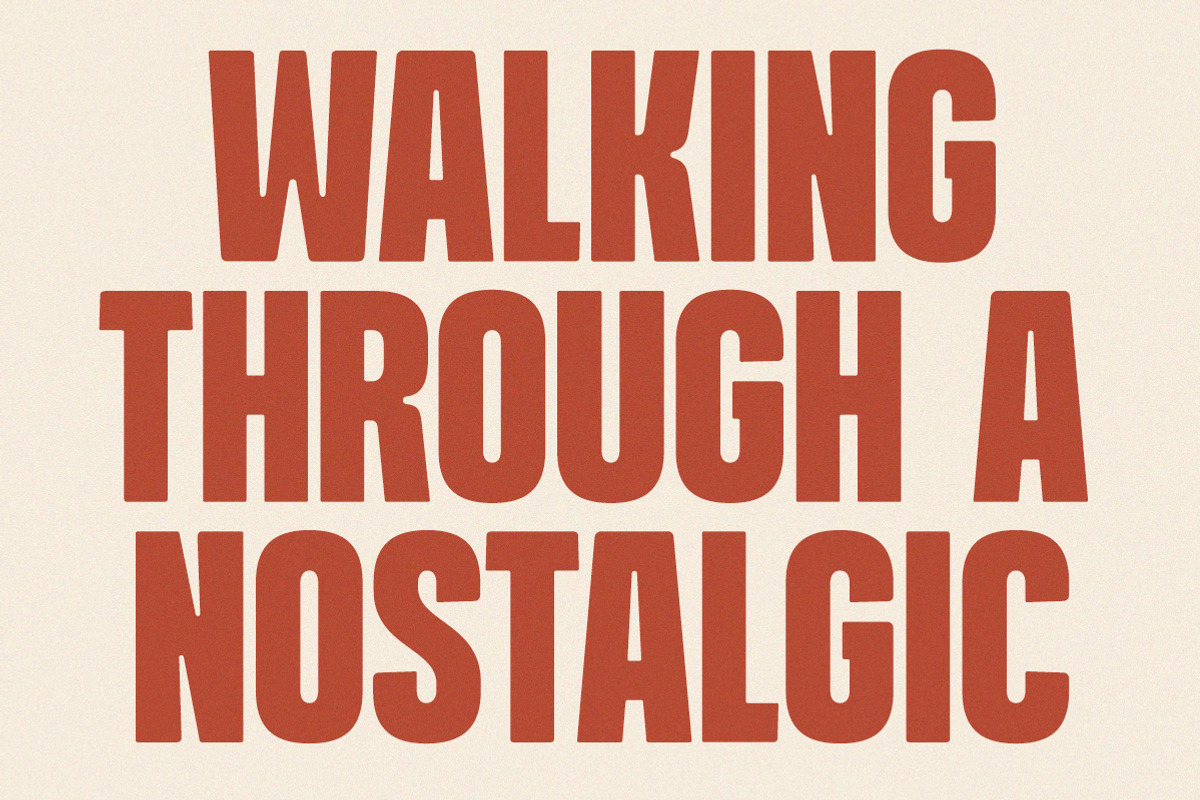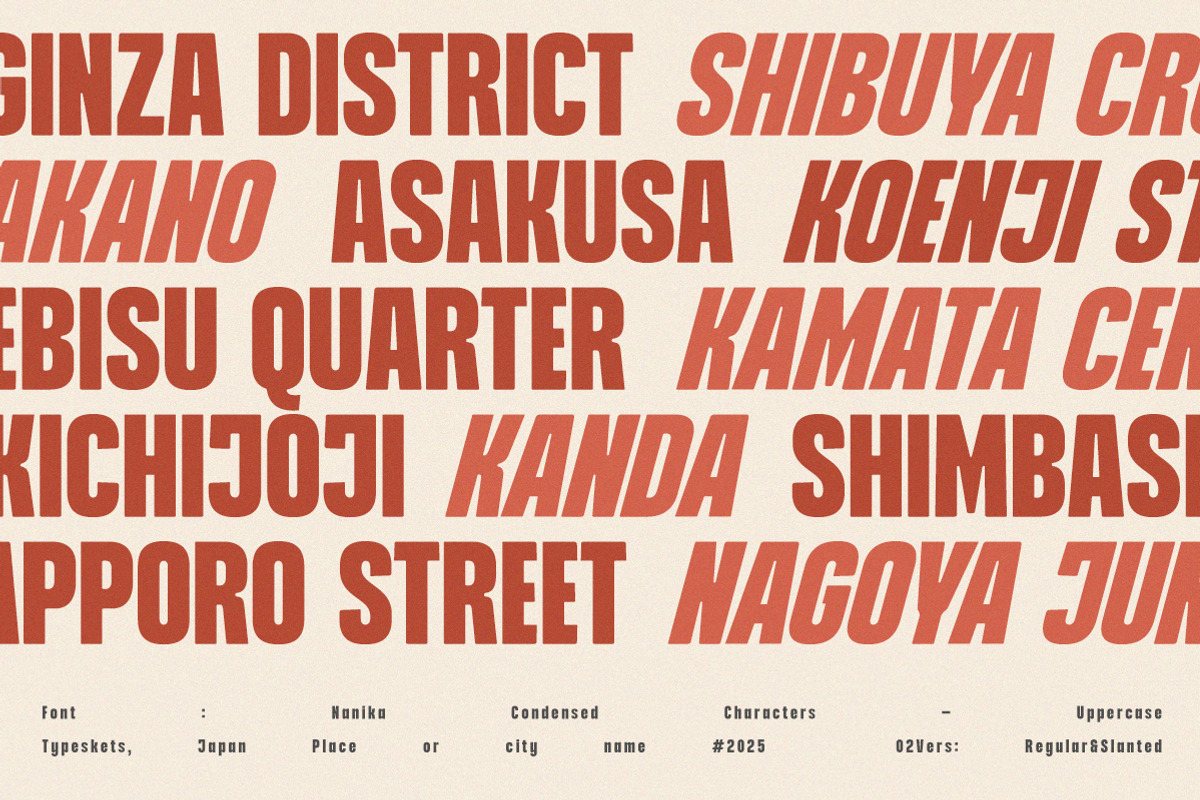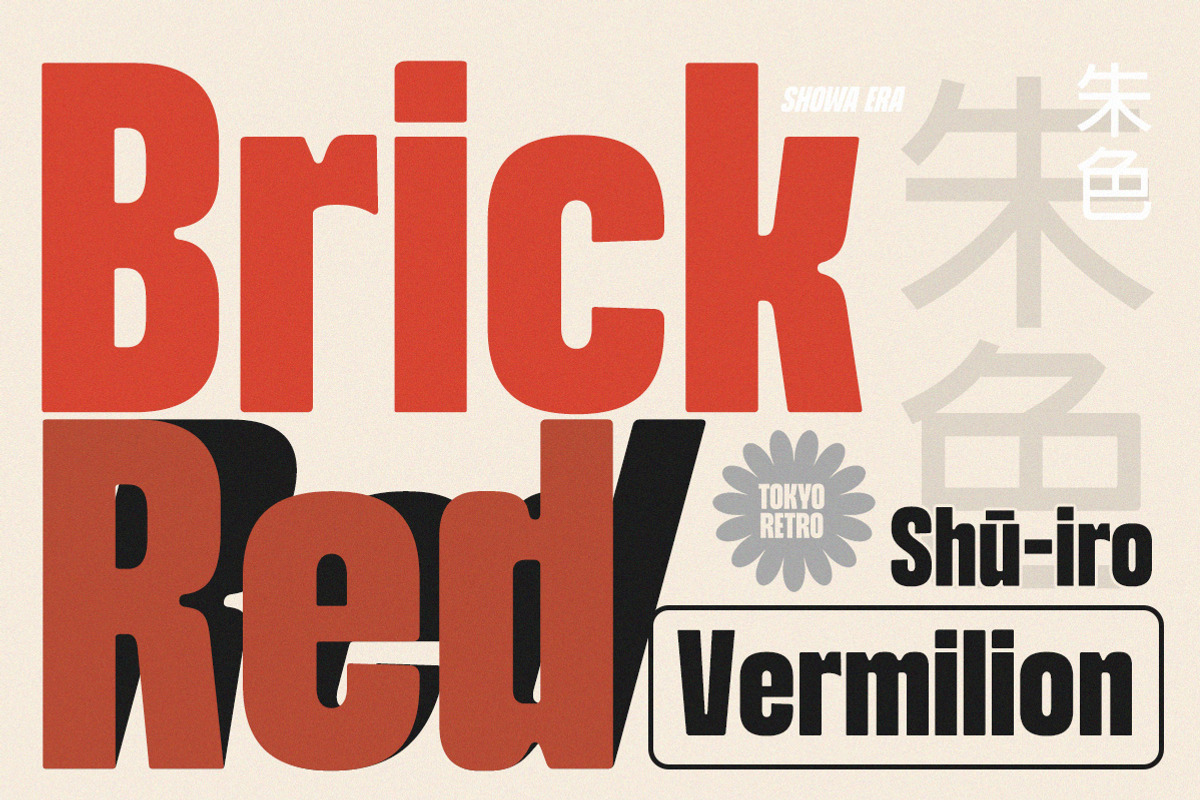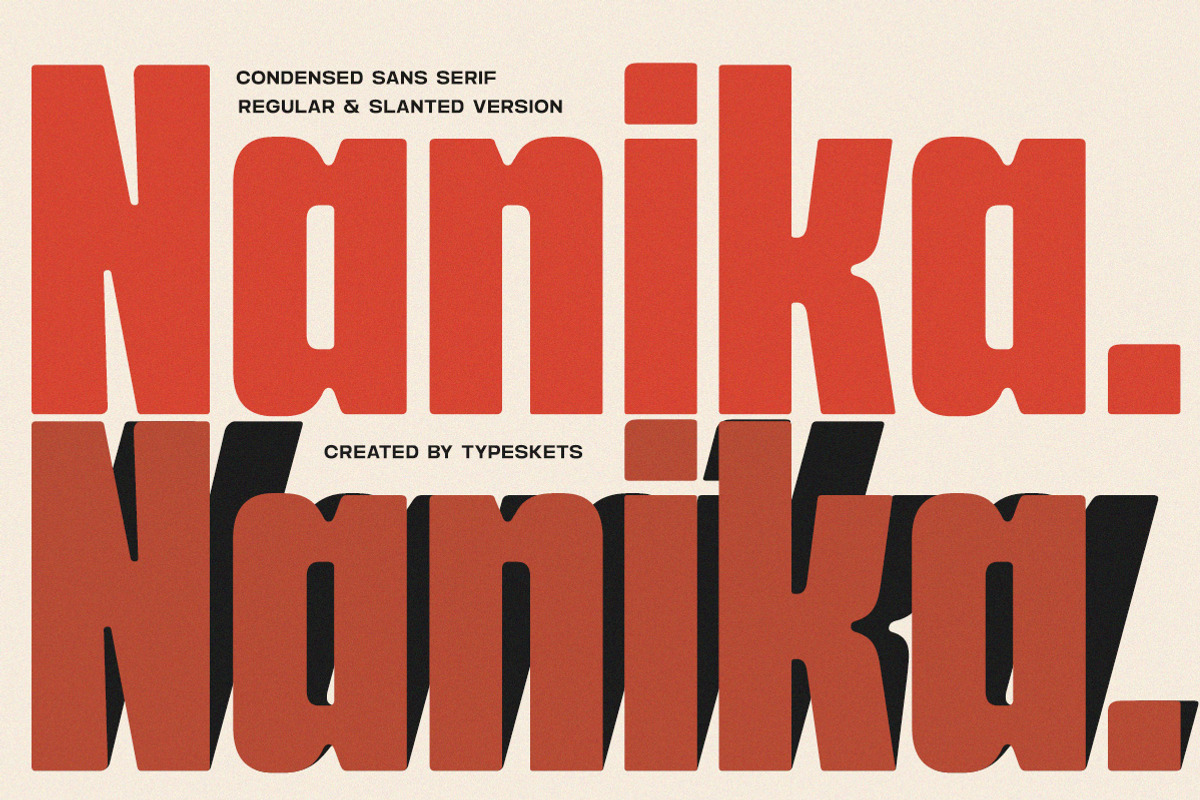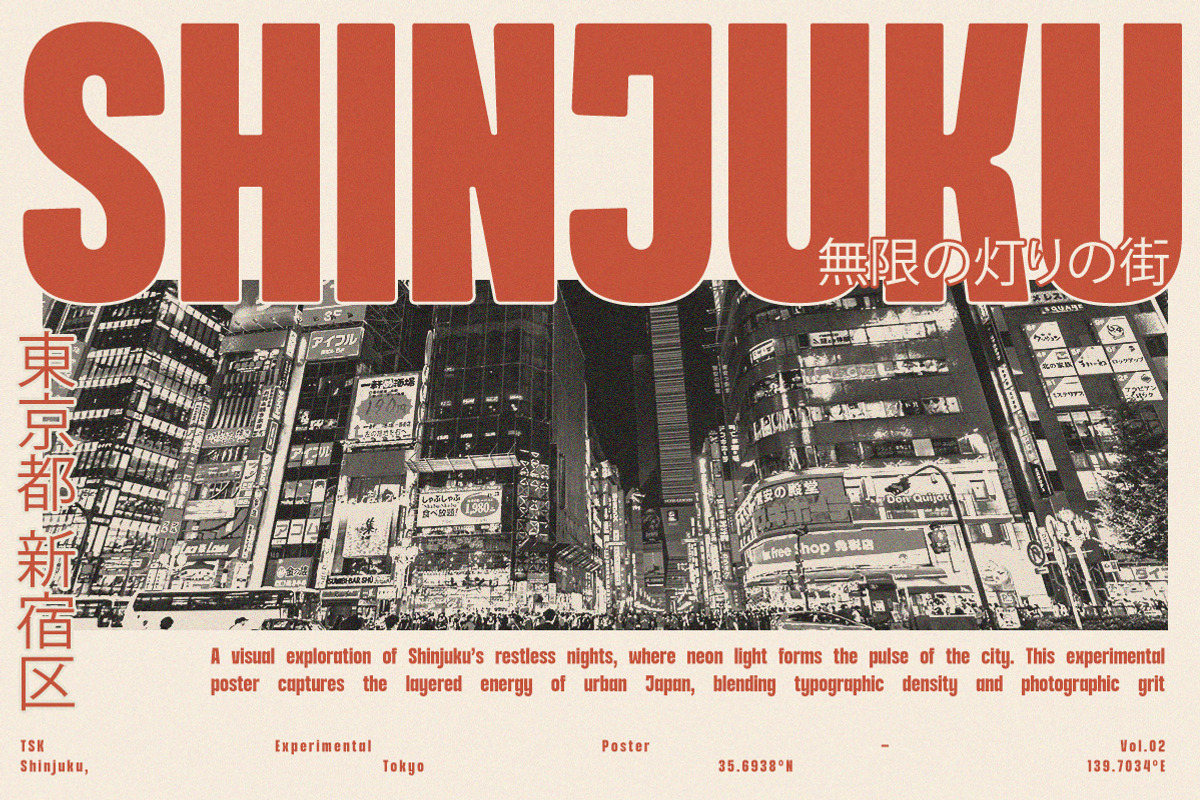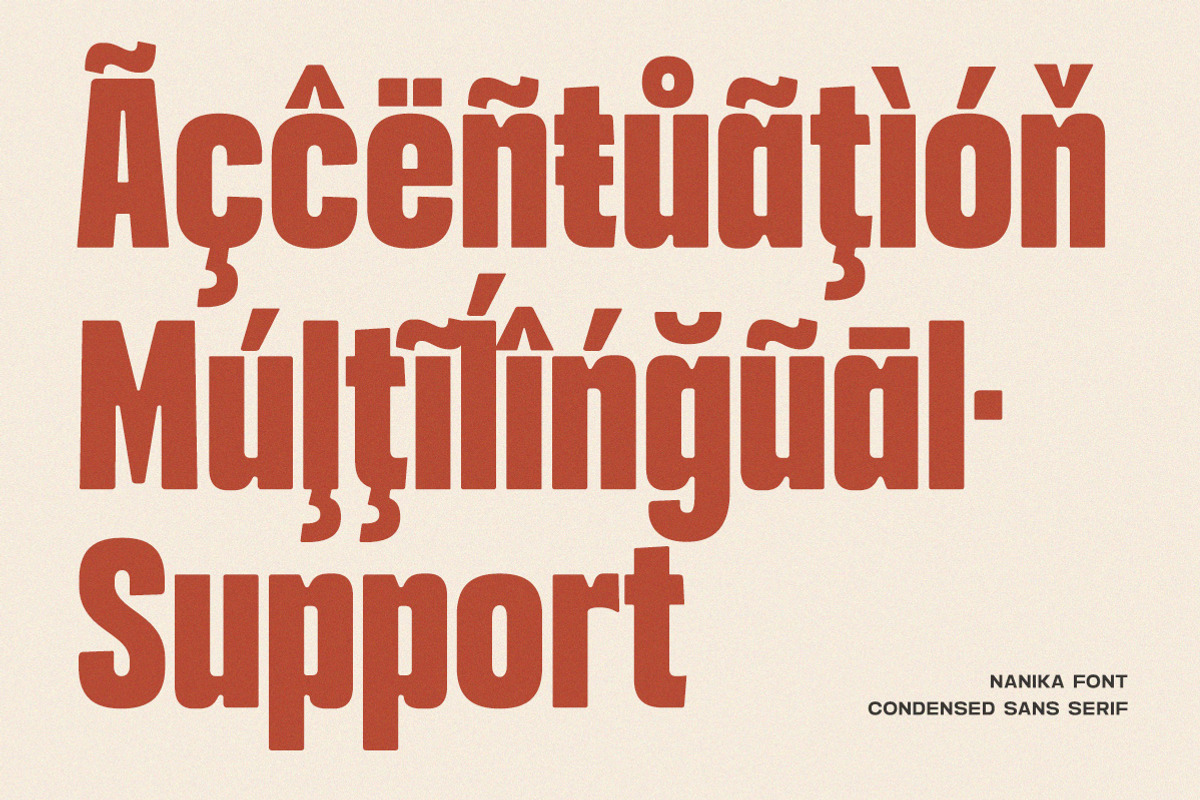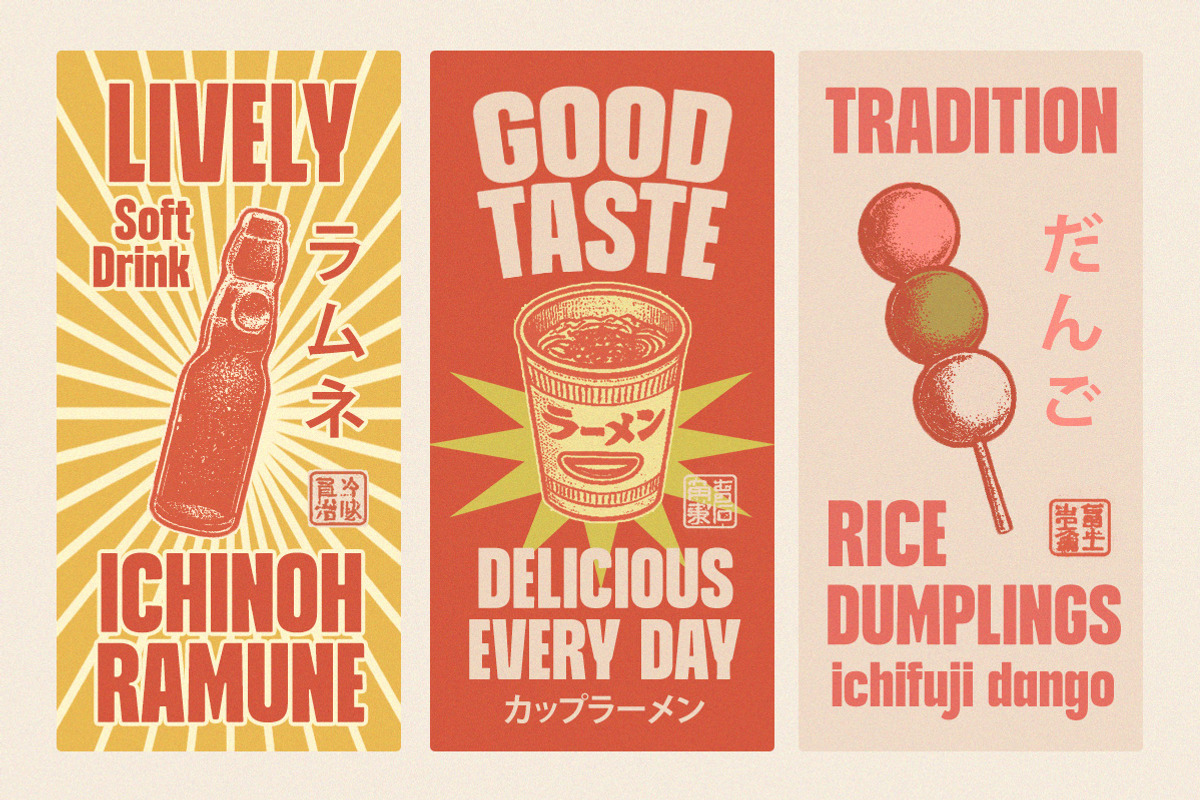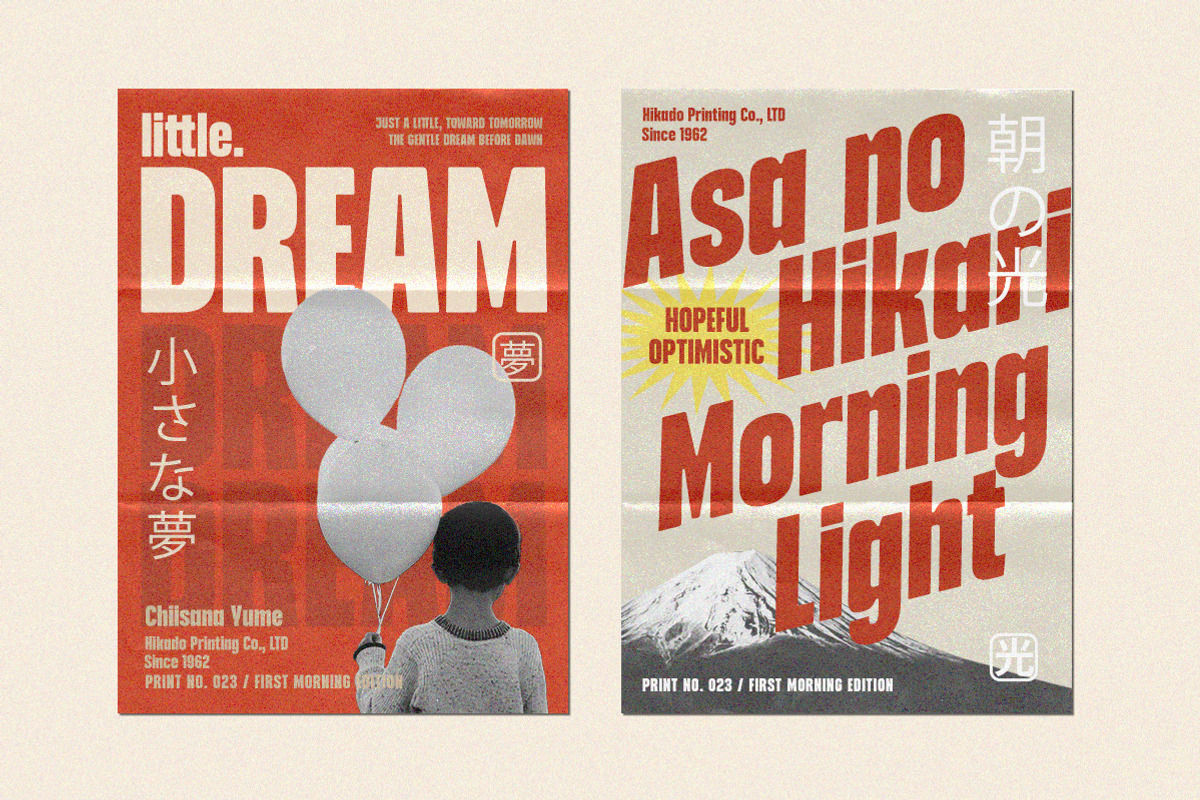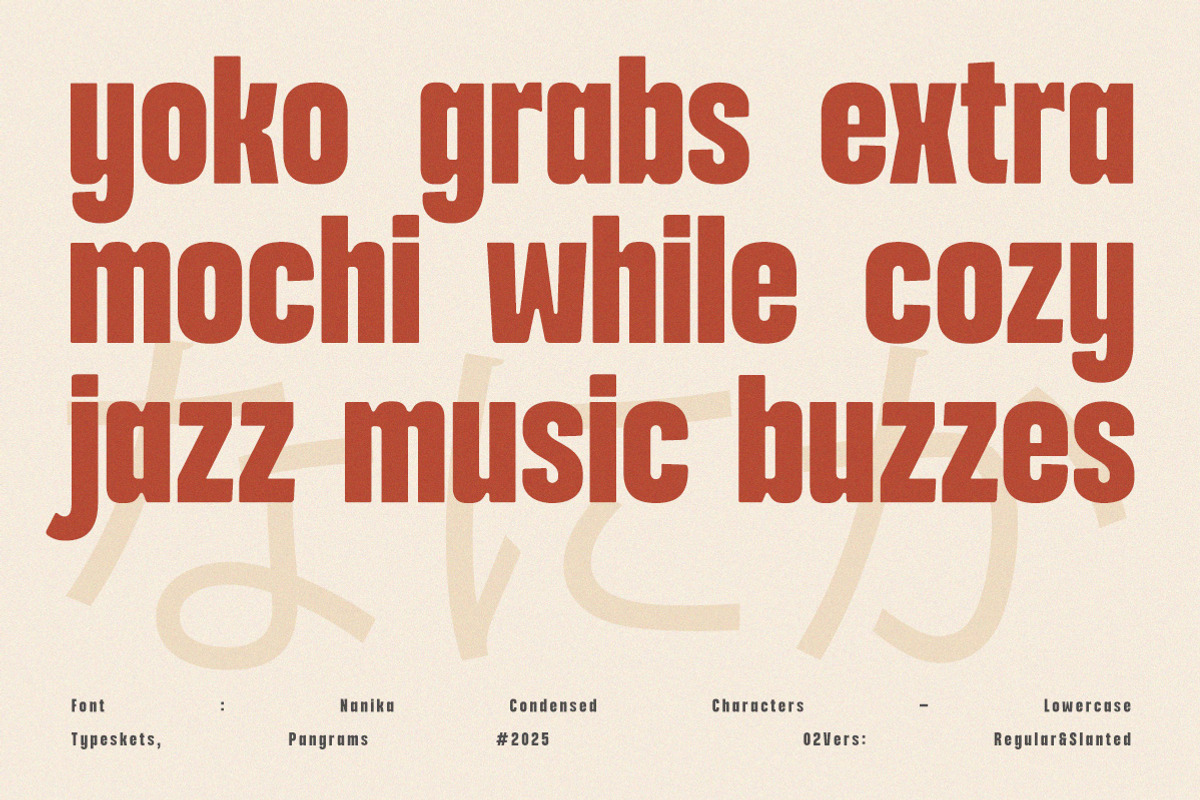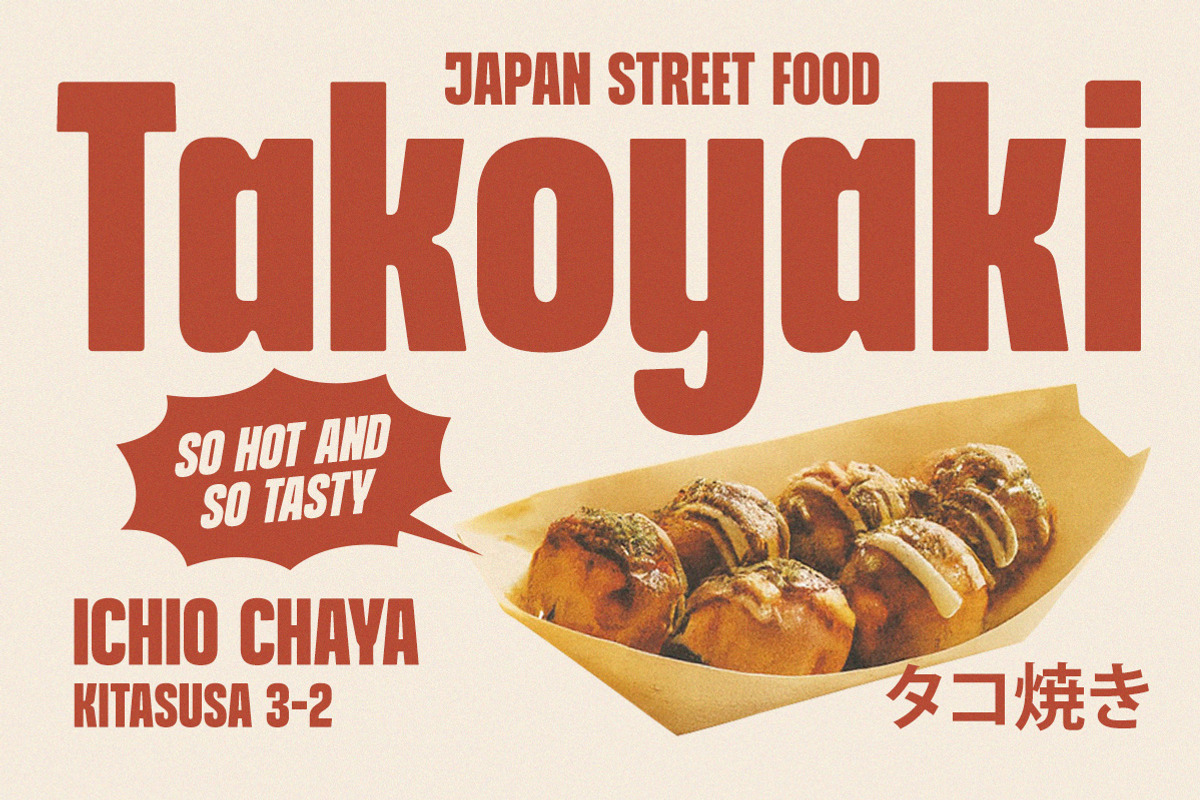
Nanika
Nanika is a bold condensed sans serif inspired by modern Japanese aesthetics. Strong, clean, and highly impactful. Perfect for posters, headlines, branding, and modern editorial design. Comes in Regular & Slanted.
With its strong vertical presence, tight spacing, and clean curves, Nanika is perfect for projects that demand boldness, clarity, and style. Whether you're designing posters, branding identities, packaging, motion graphics, or digital layouts, Nanika transforms simple words into striking visual statements.
- Multilingual Support (Accentuation)
- Uppercase Lowercase
- Available Regular & Slanted styles